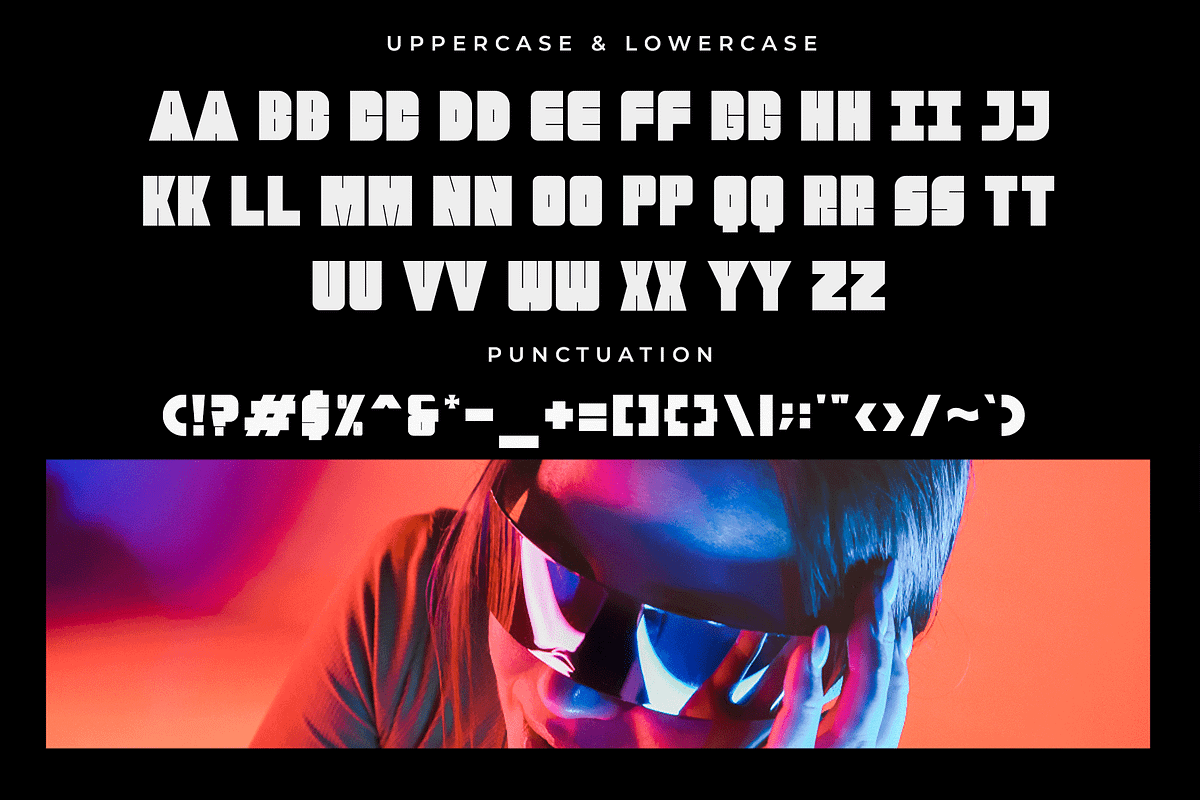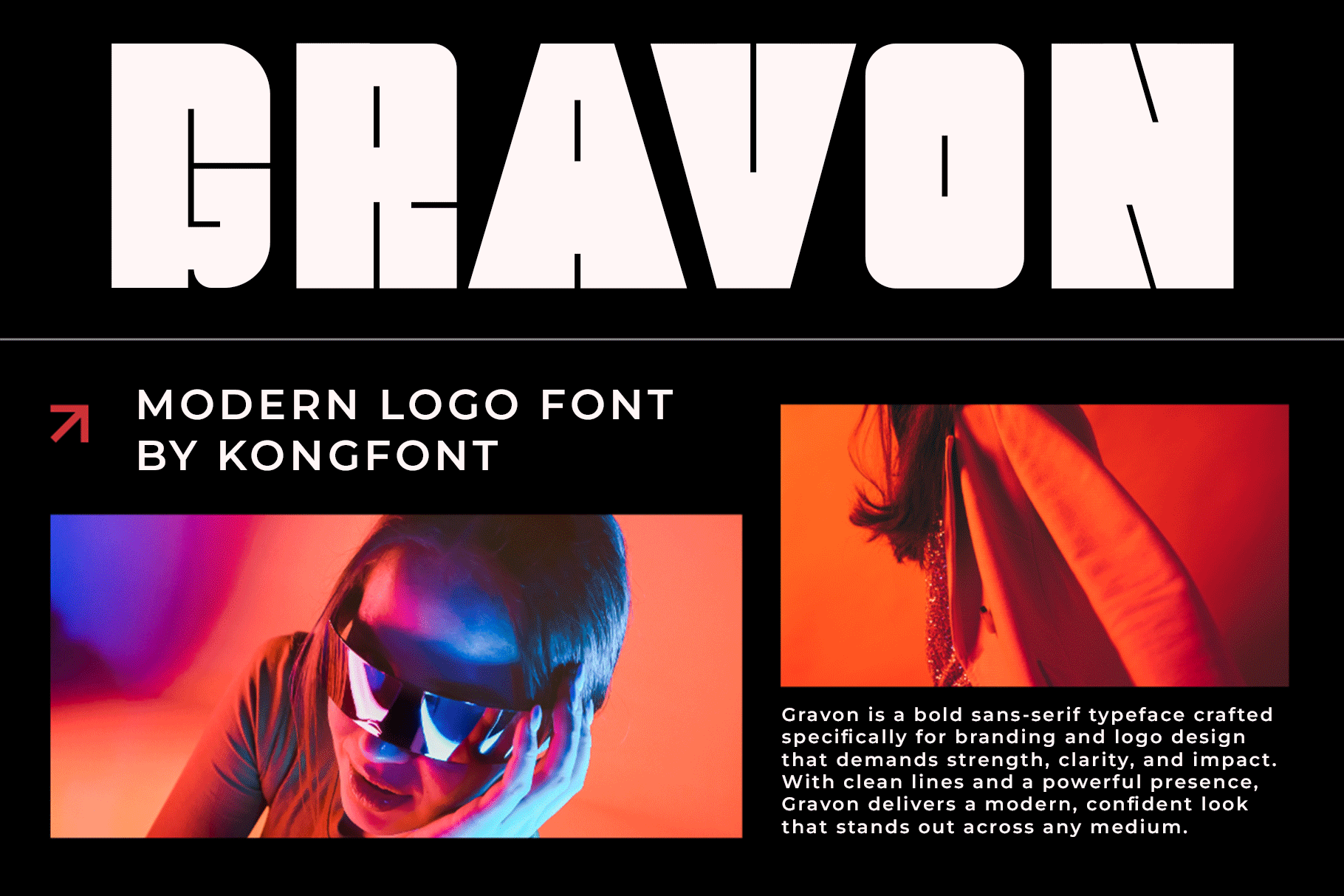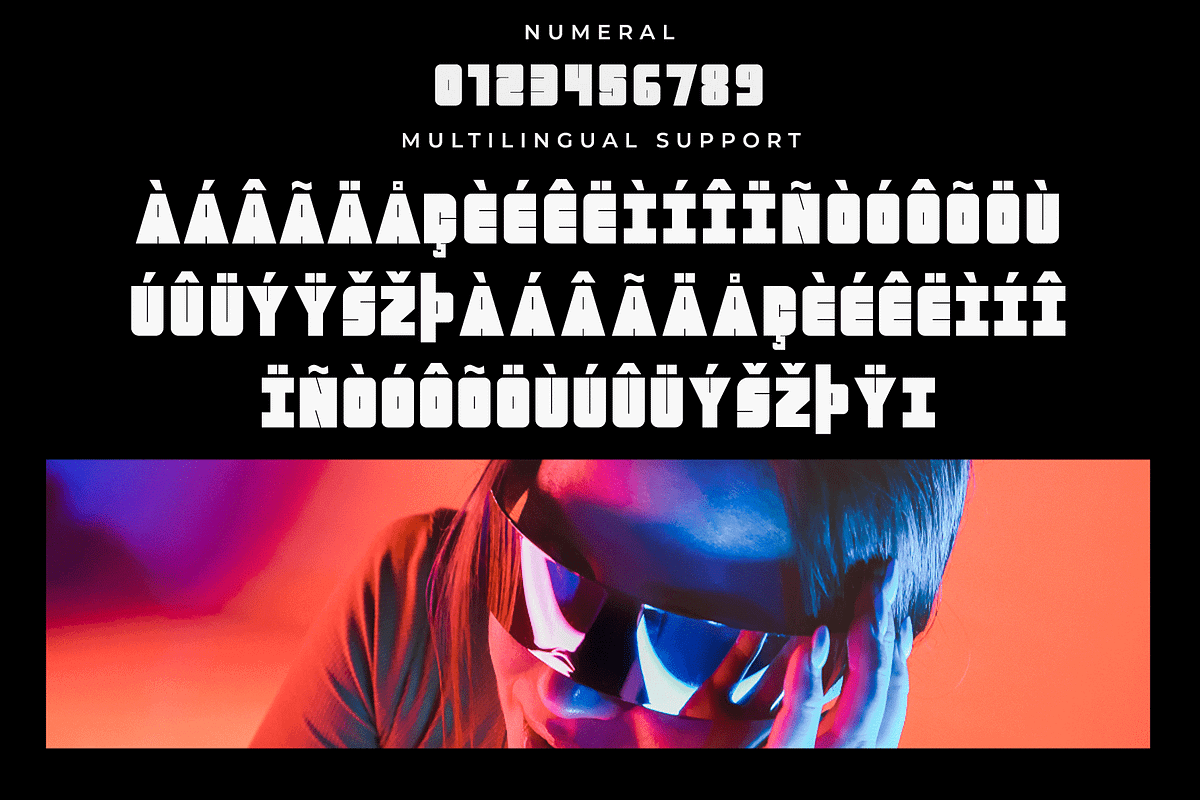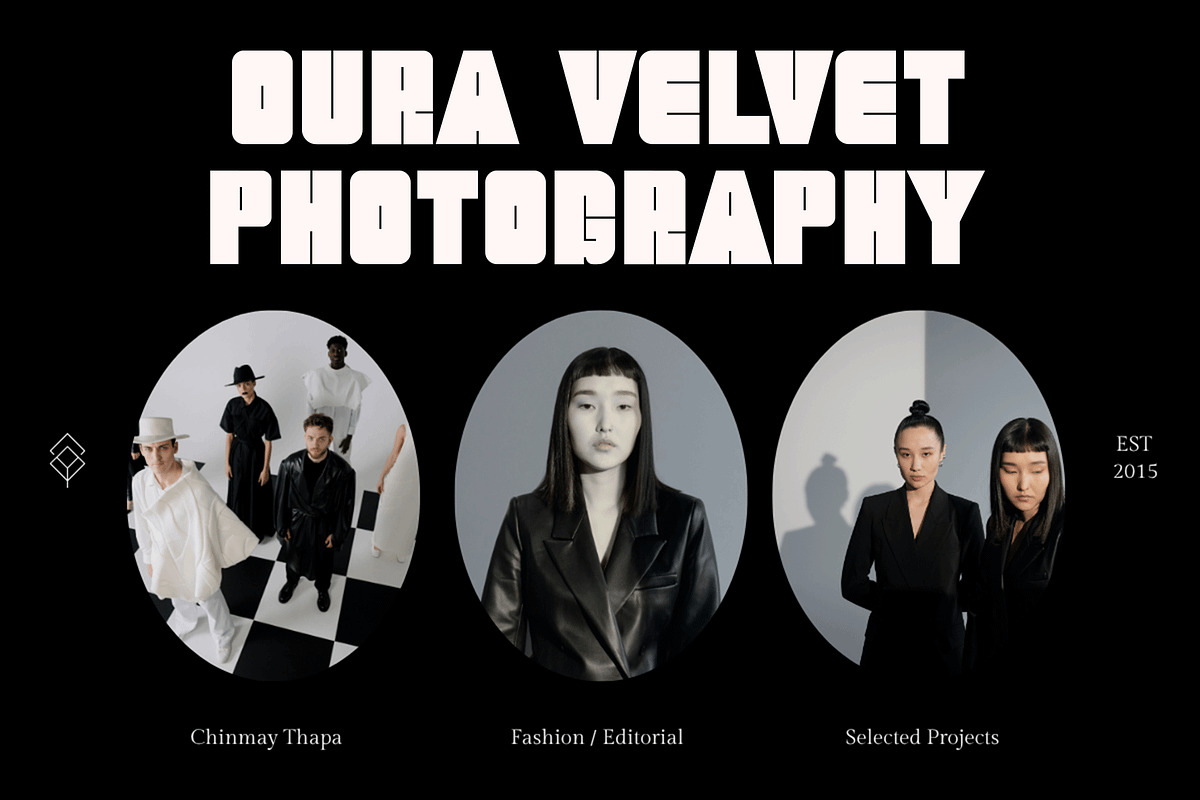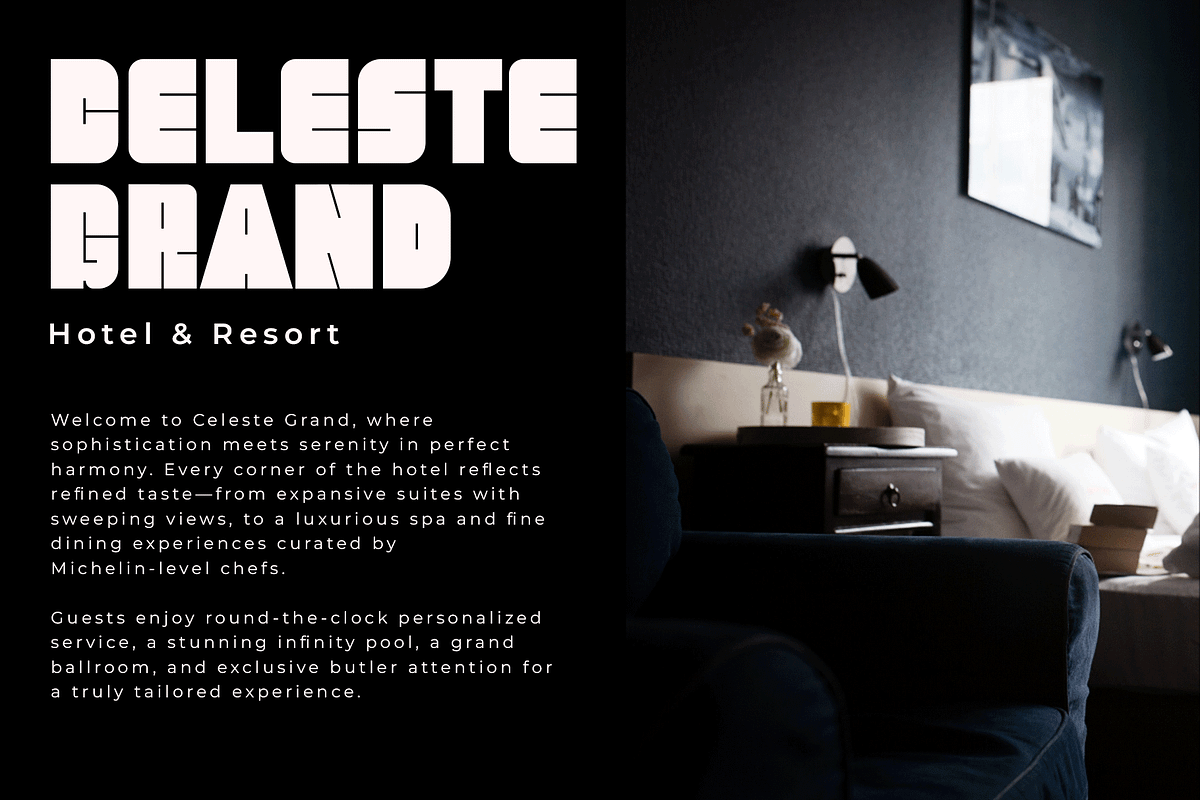
Gravon – Modern Logo Typeface
Gravon is a modern logo font crafted with precision and style, designed to make your brand identity stand out with sleek, clean lines and geometric balance. With its contemporary aesthetic, Gravon brings a futuristic and professional touch to any creative project.
Ideal for logo design, branding, tech startups, packaging, or editorial layouts, this font combines simplicity with a bold presence. Gravon’s unique character shapes and stylish ligatures make it a perfect choice for creating distinctive logotypes and modern visual branding.
This typeface includes uppercase letters, numerals, basic punctuation, and multilingual support—ensuring flexibility for global use across both digital and print media.